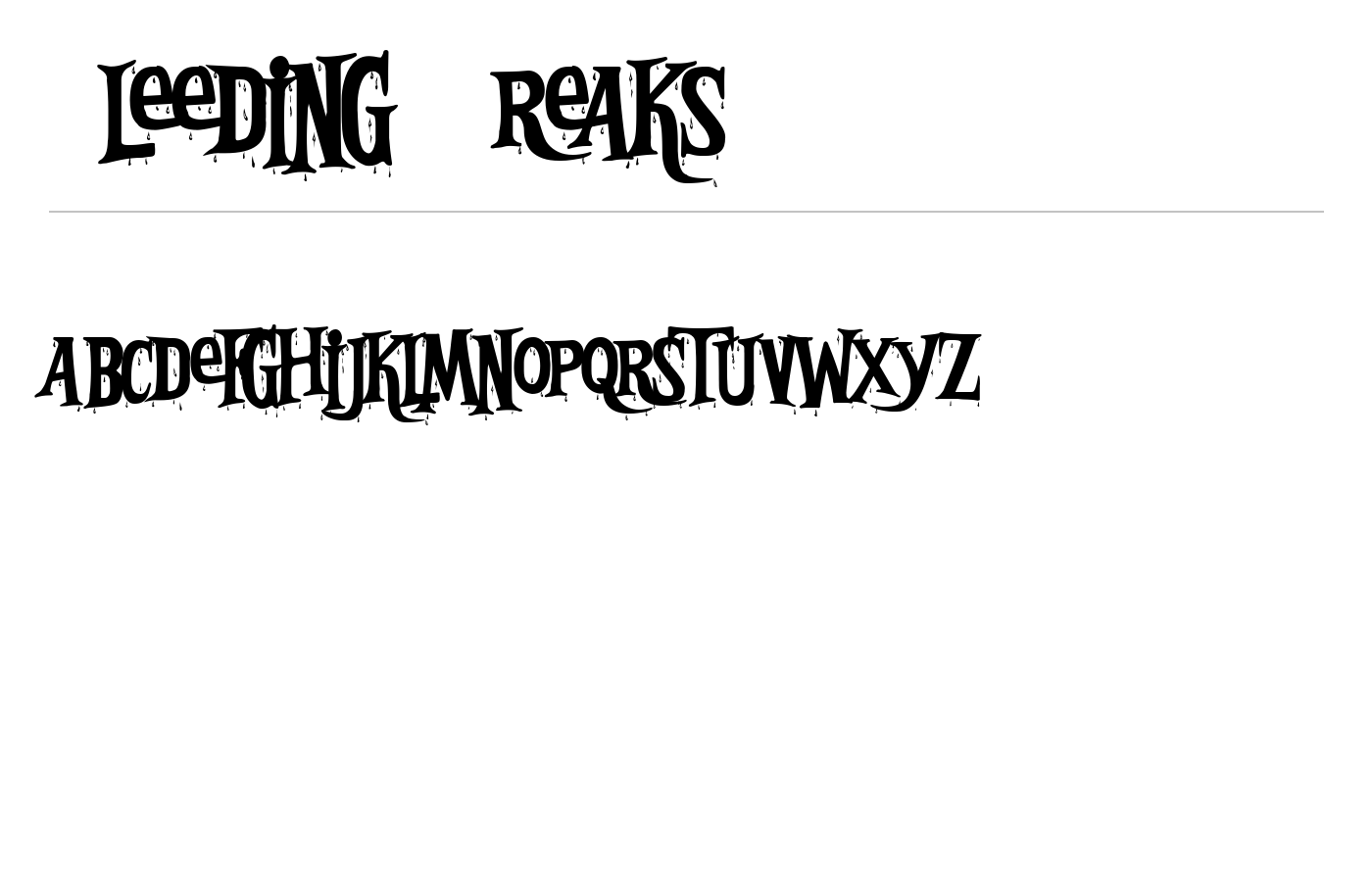
Bleeding Freaks is a bold, decorative serif font with a spooky and dripping effect that gives it a horror-themed, eerie vibe. Its tall, slightly condensed letterforms with quirky, dripping strokes make it perfect for Halloween designs, horror movie posters, or any creative project that wants to convey a dark, playful, and dramatic mood. This font stands out best in headlines and display uses where its unique character can shine.
Bleeding Freaks Font
About Bleeding Freaks Font